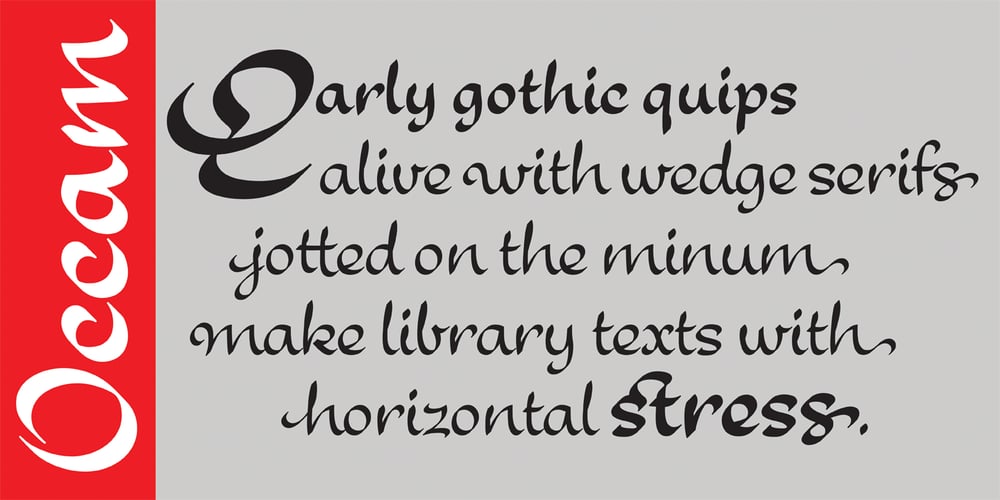
Occam Font Family was designed by Terry Lee and published by Veil of Perception. Occam contains 2 styles and family package options. Occam is an informal calligraphic script face. The letter forms were drawn and constructed rather than penned or brushed but reflect a definite flat pen influence. The ascenders and descenders incorporate an abstract implied loop form. Some curves that would normally be round are pointed and some transitions that would normally be sharp and pointed have been made round. A few exit strokes curve back instead of moving up and out for a little different look. This font could be put to good use as a contrasting style combined with sans and serif faces in applications such as newsletters, brochures, invitations and annual reports. It could be used for heads, subheads, pull quotes, drop caps and as a title font for covers.